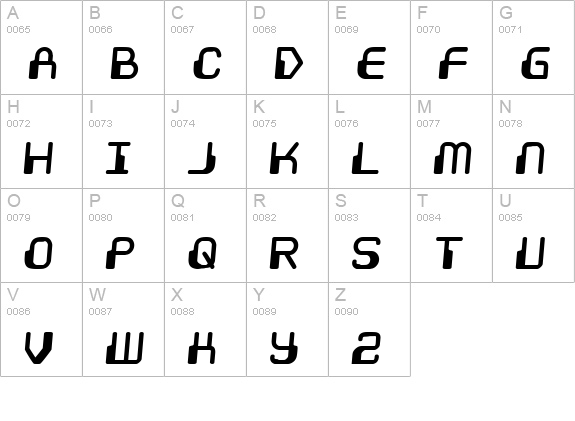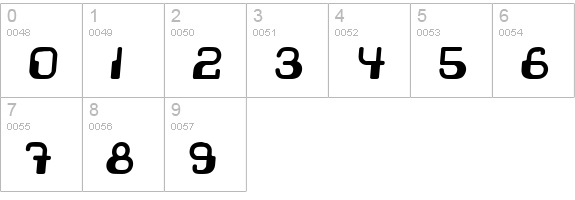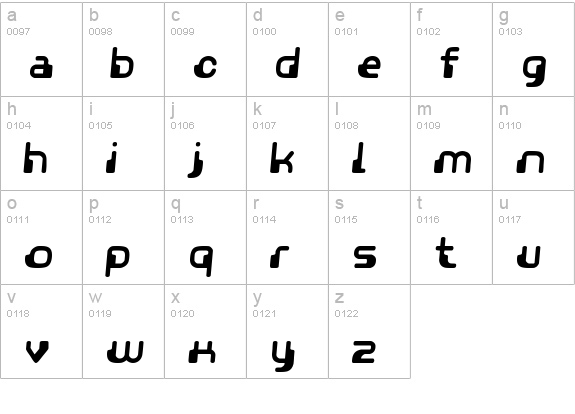
Videophreak Font Details
Introducing Videophreak font, a captivating and dynamic typeface that will add a touch of excitement and modernity to your designs. With its unique and edgy letterforms, this font is perfect for projects that require a bold and vibrant look. Videophreak font is not only visually stunning, but it also offers incredible versatility. Whether you're designing a poster, a logo, or a website, this font will make your text pop and grab the attention of your audience. One of the best things about Videophreak font is that it is completely free! Yes, you read that right. You can download this amazing font without spending a single penny. It's freely available for download at FontsMarket.com, a trusted source for high-quality and diverse fonts. So why wait? Don't miss out on the opportunity to enhance your designs with Videophreak font. Download it now and let your creativity flow.